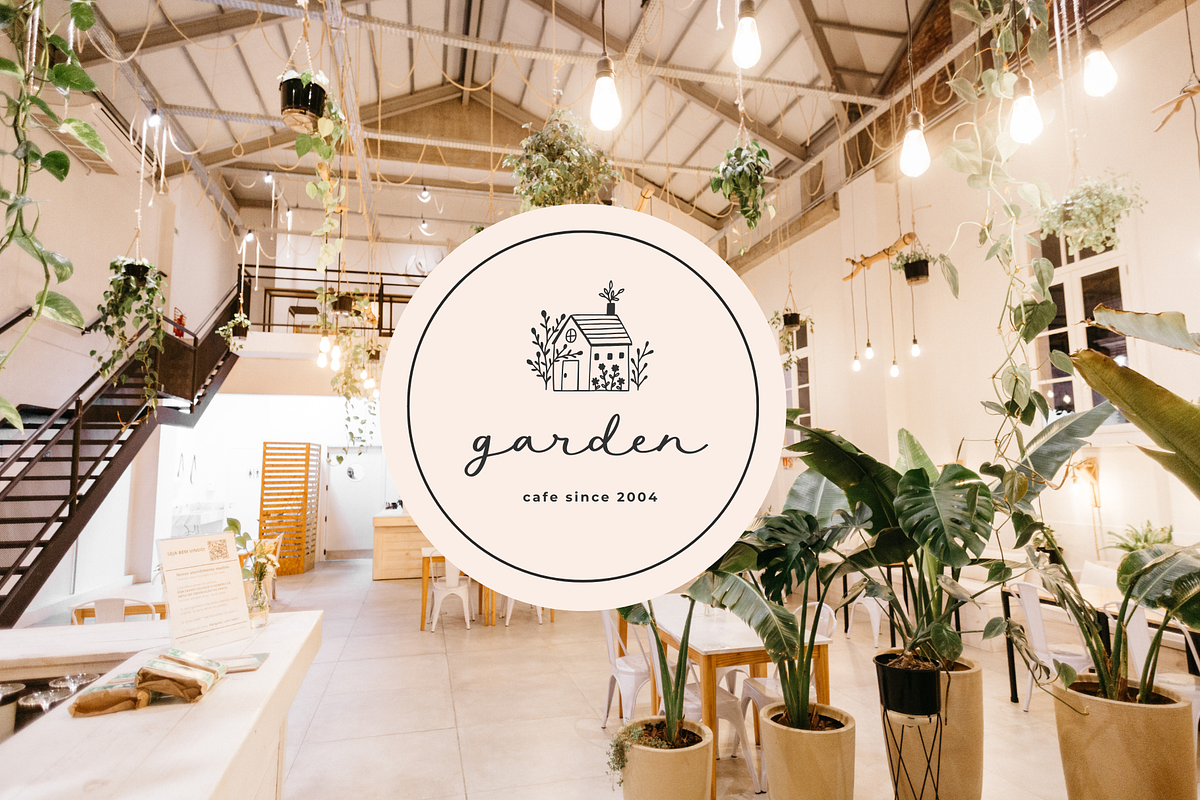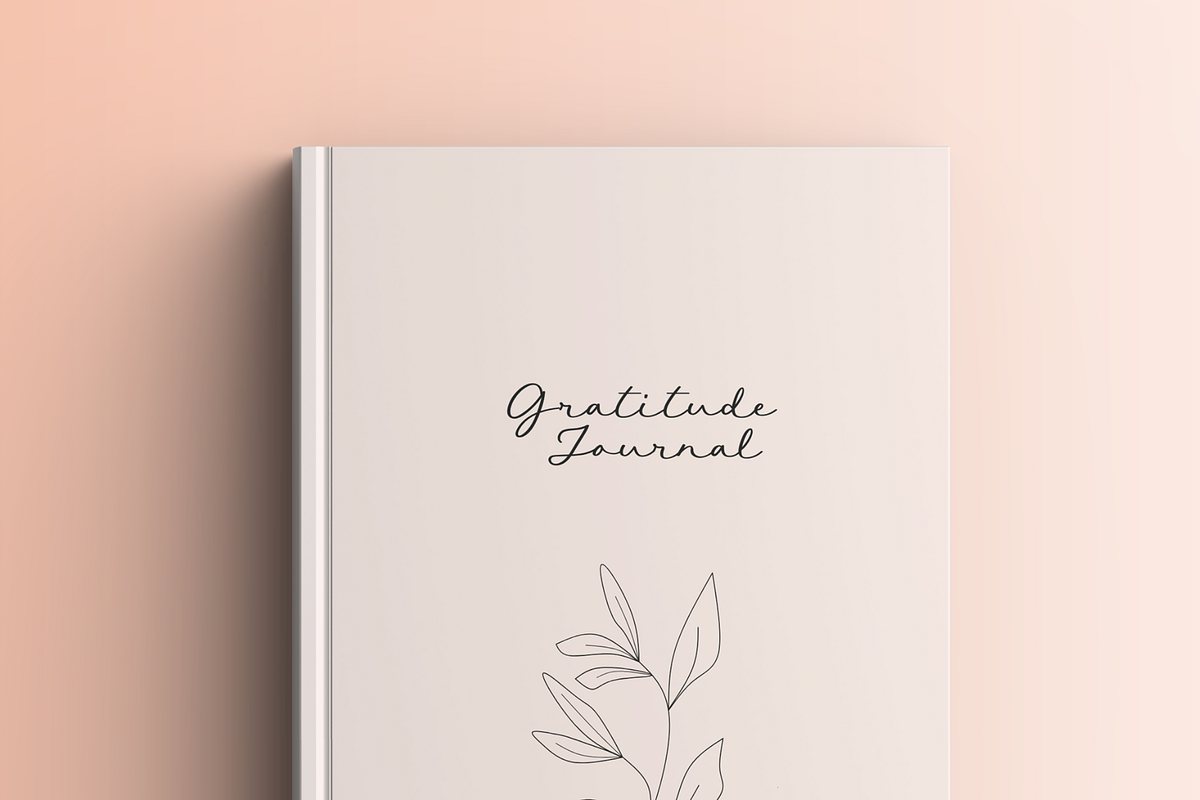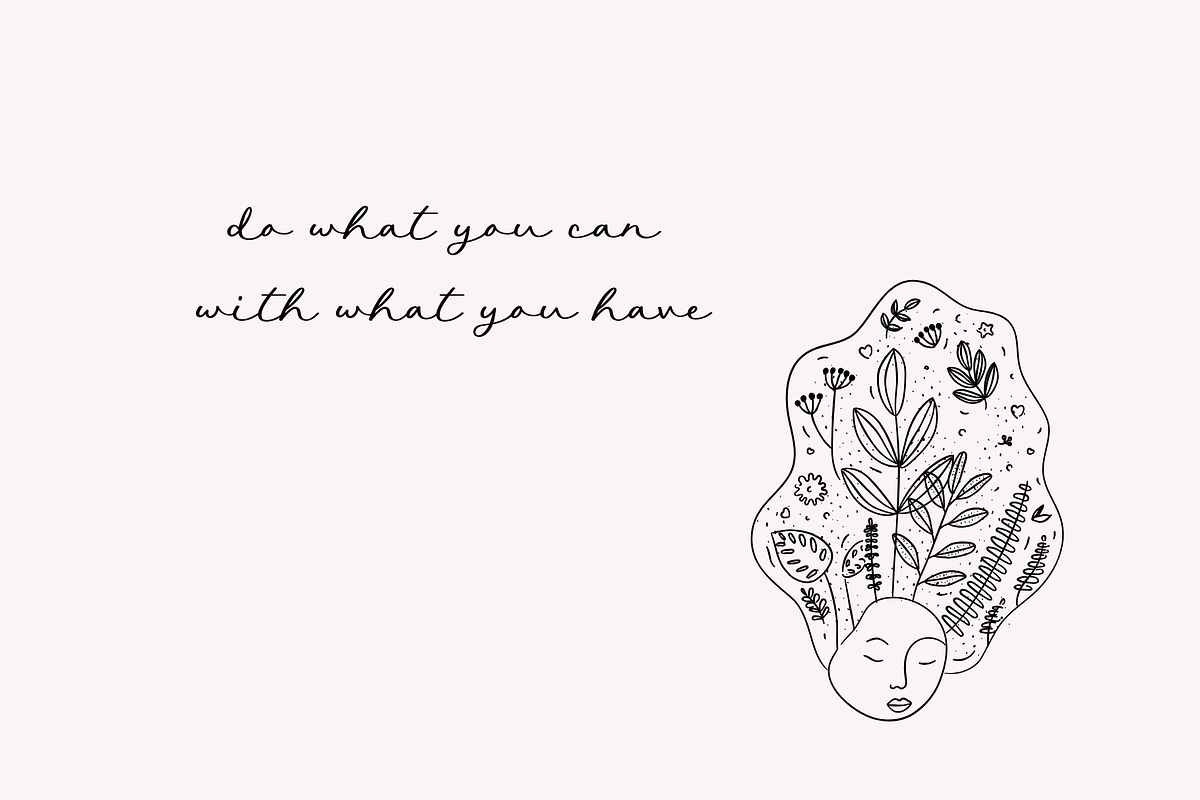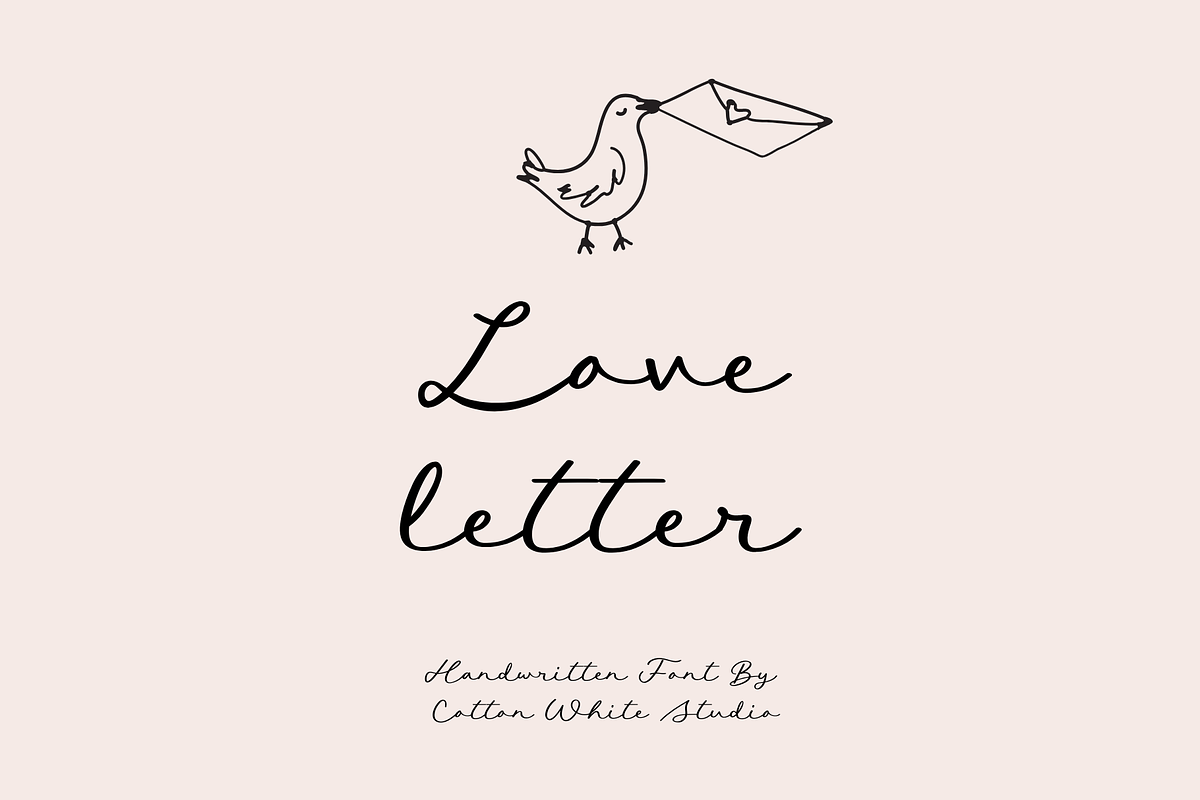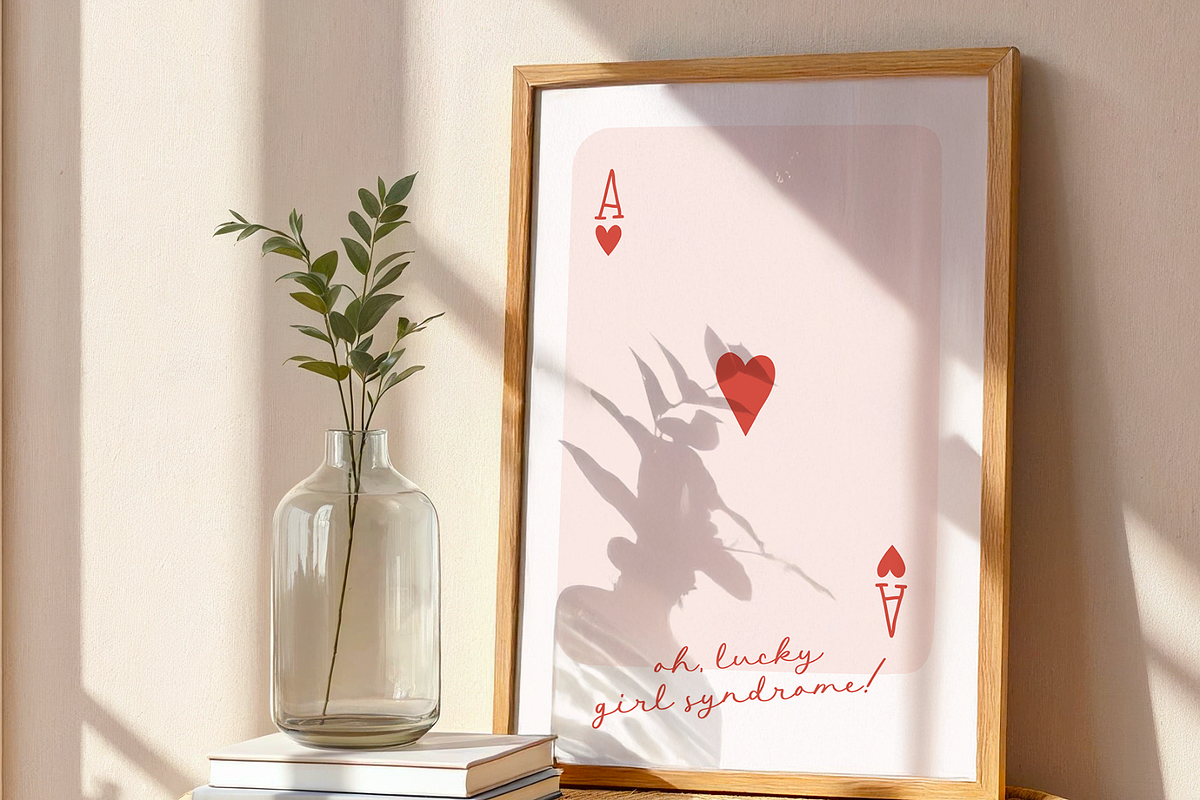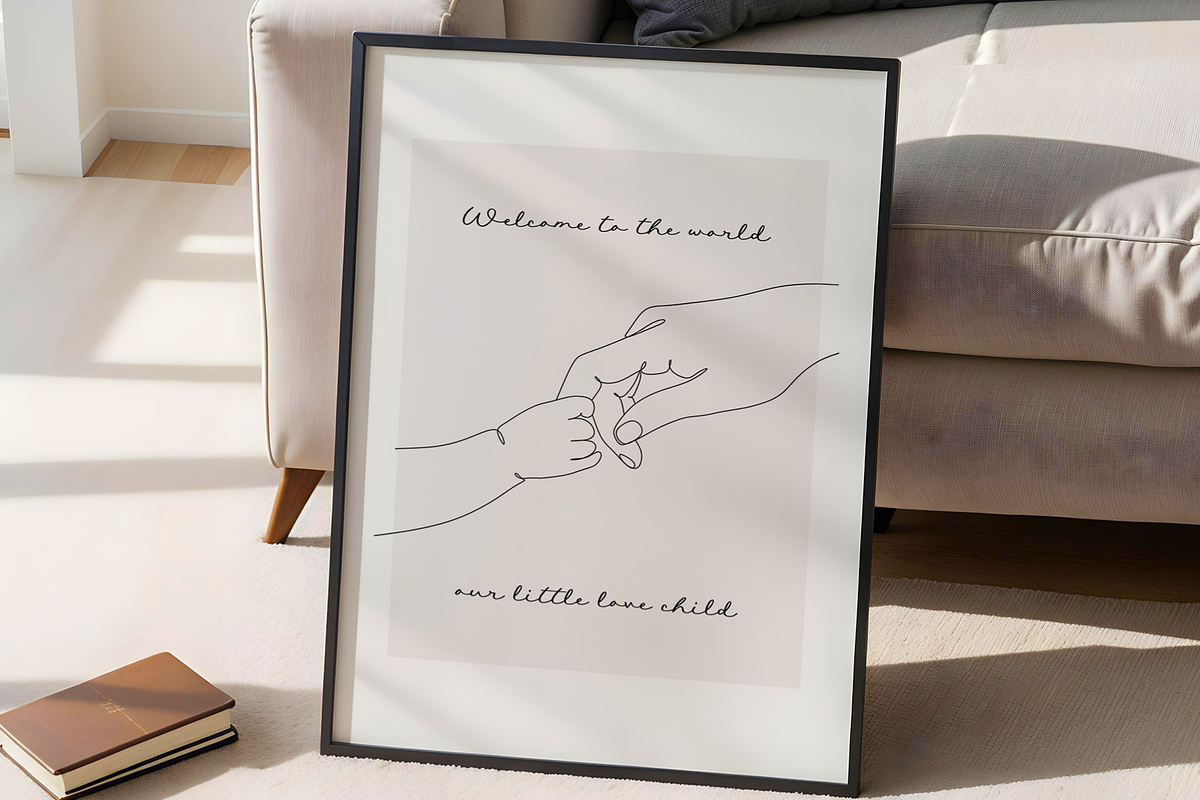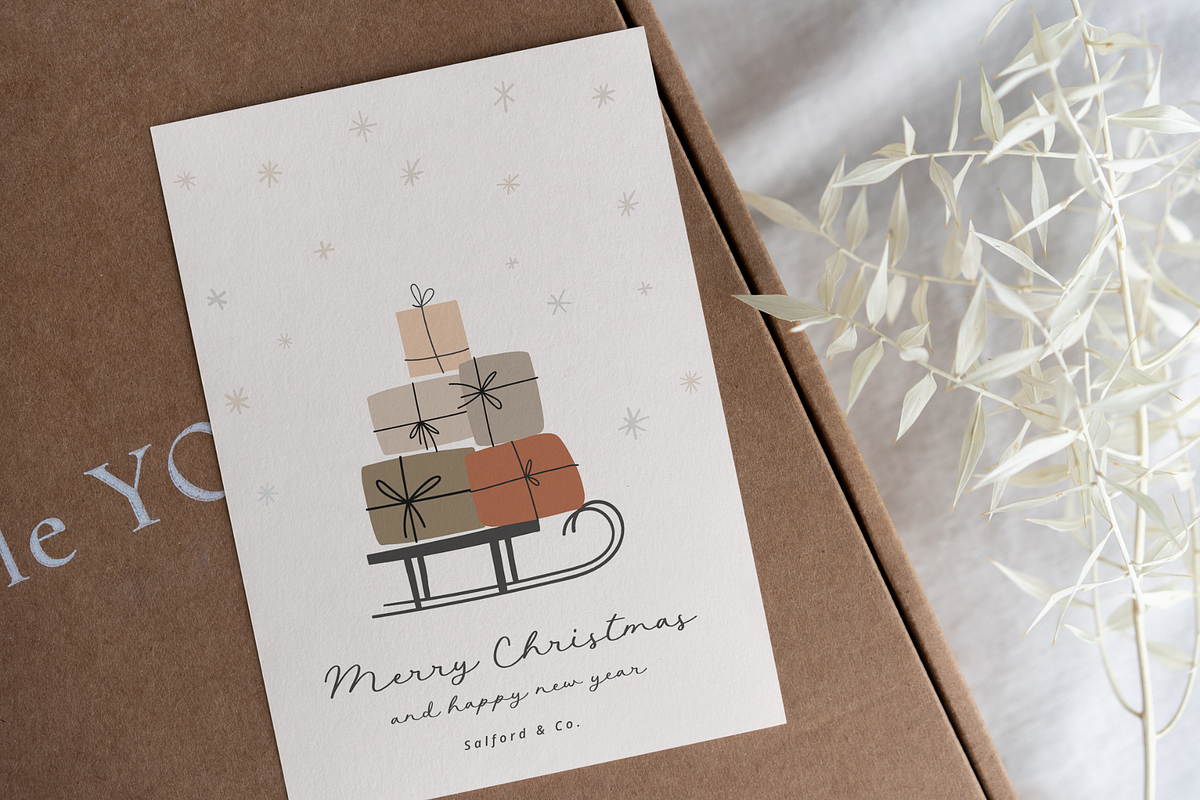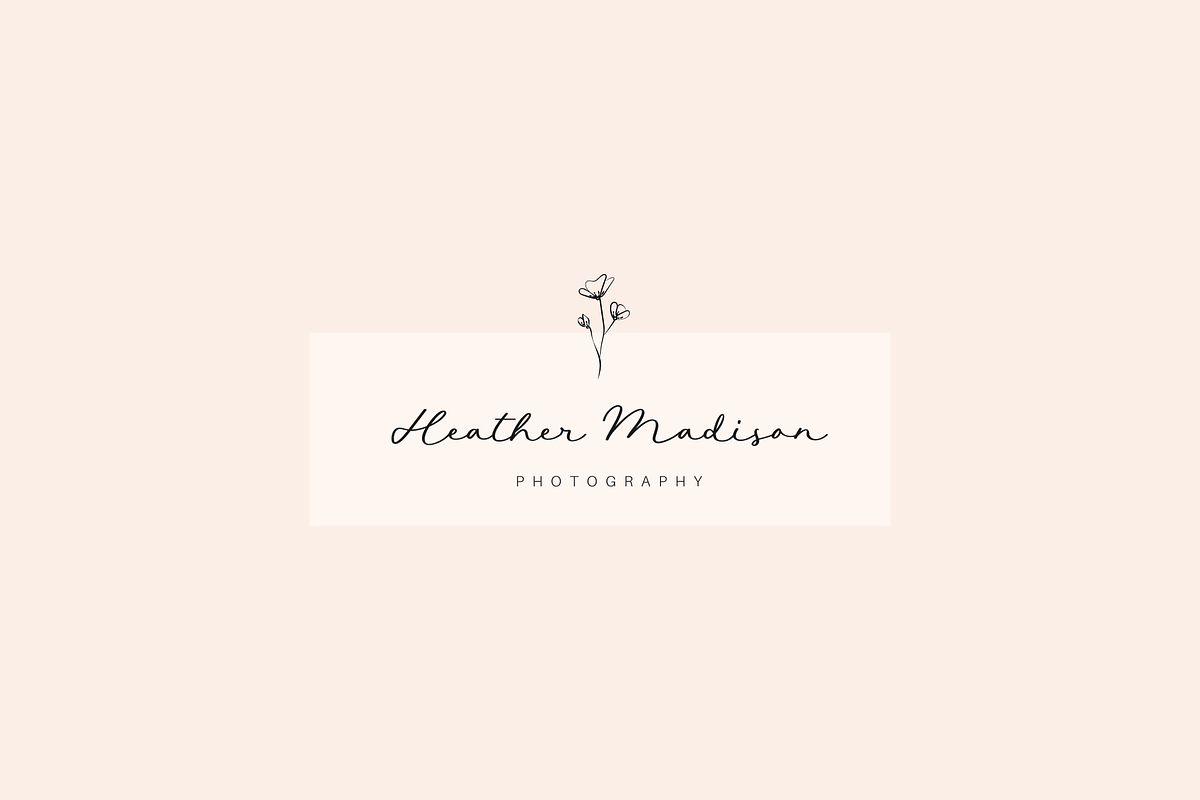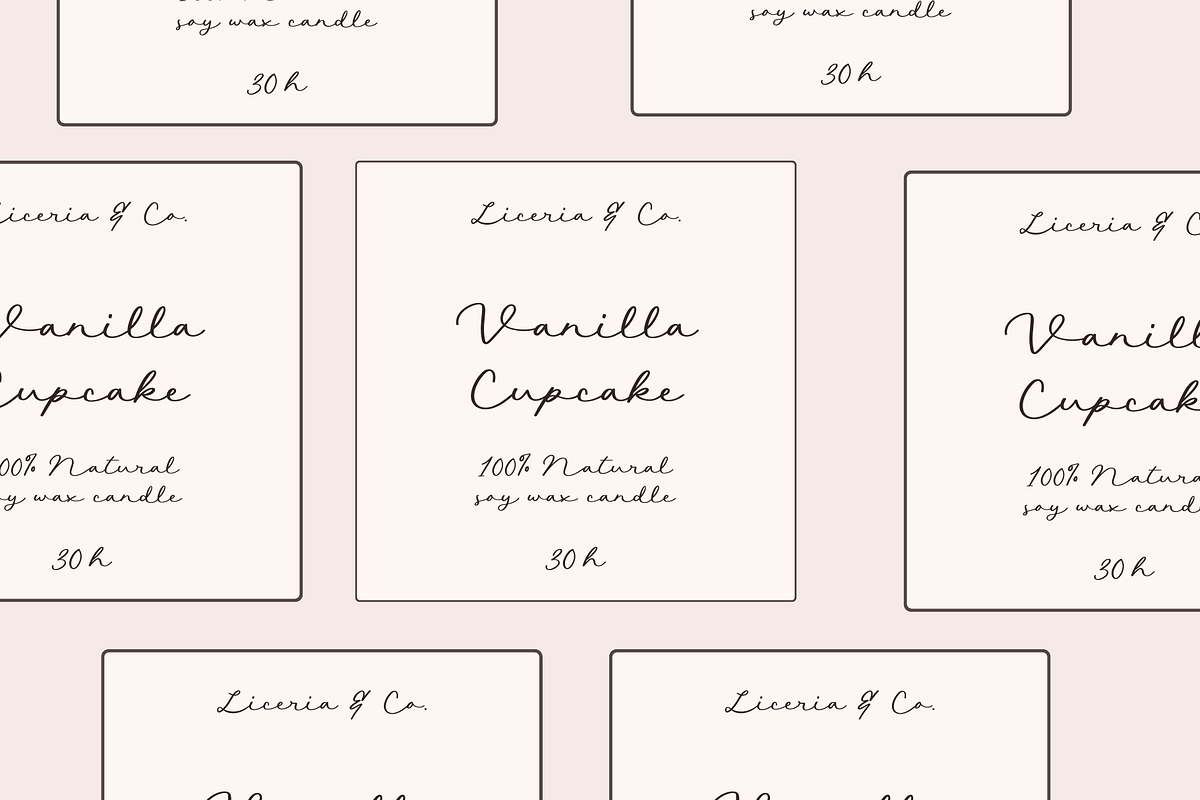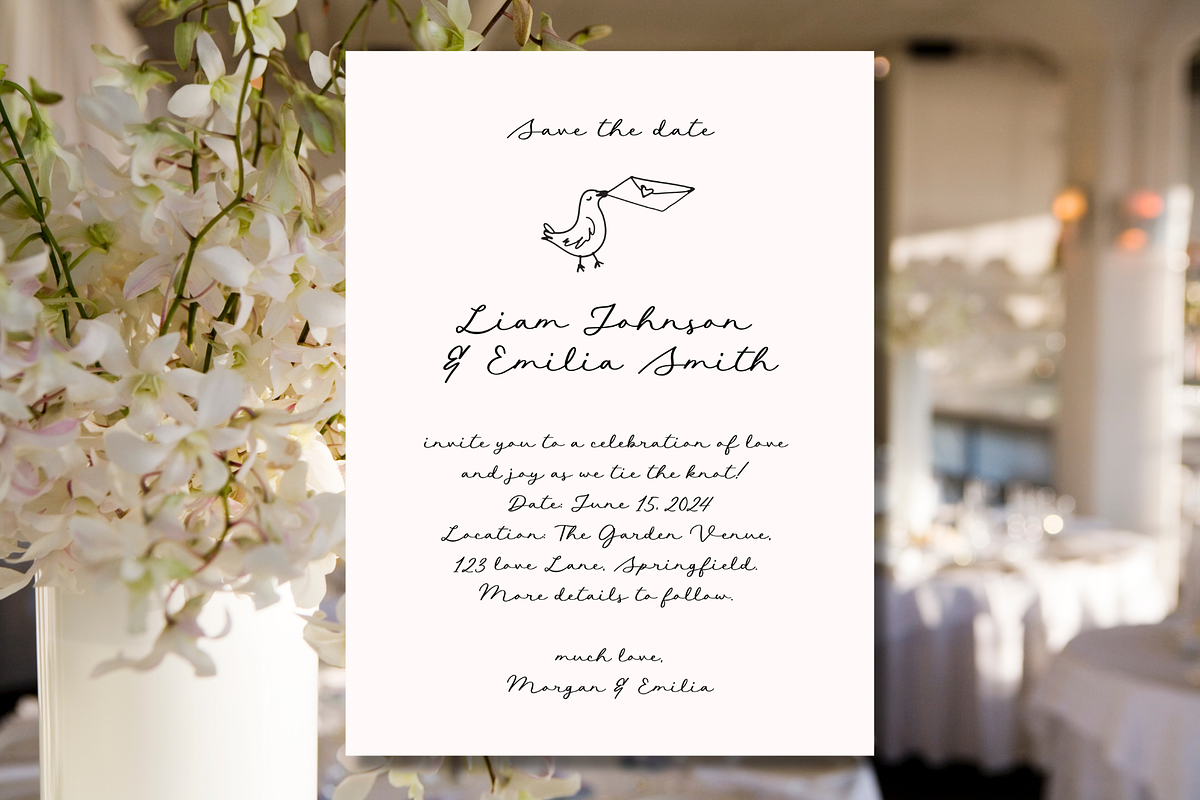
Love Letter
Add a touch of personality with our romantic, handwritten font Love Letter! Full of character and charm, this playful font bring a relaxed, imperfect feel to any project. Whether you're designing a greeting card or refreshing your brand, it's perfect for creating something distinct and full of life.